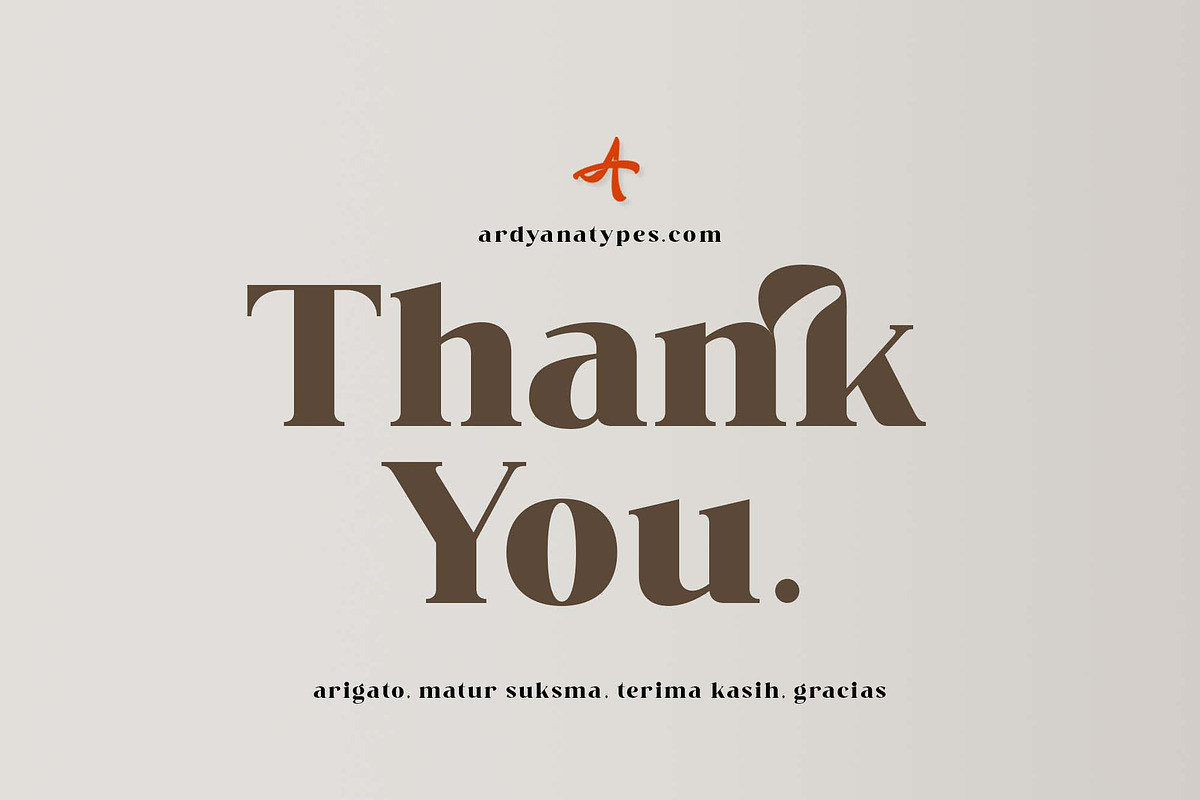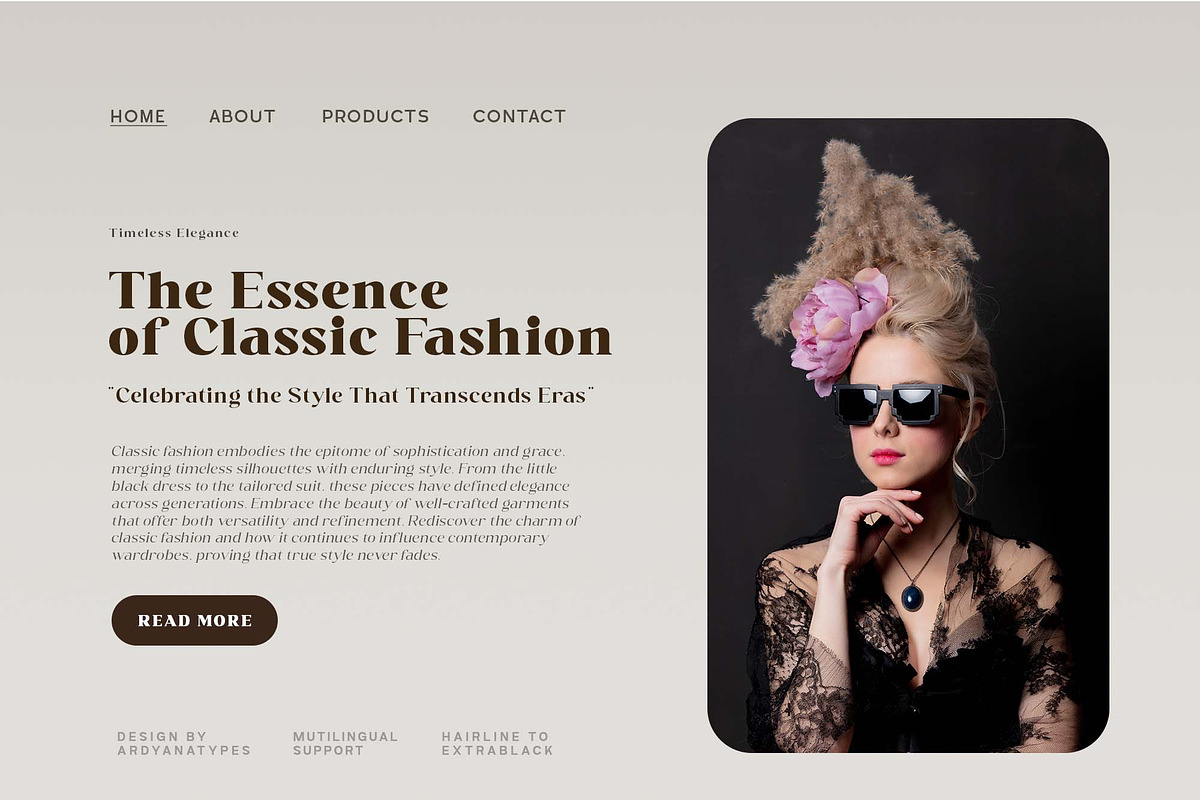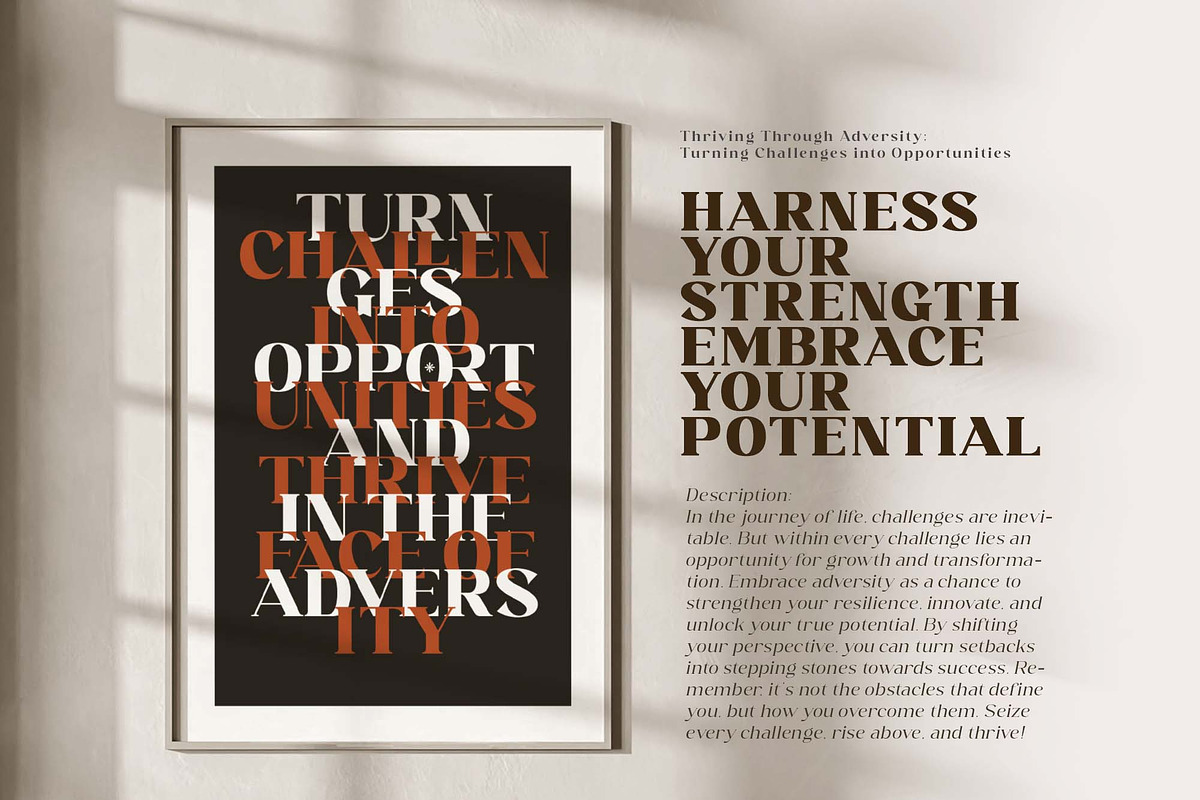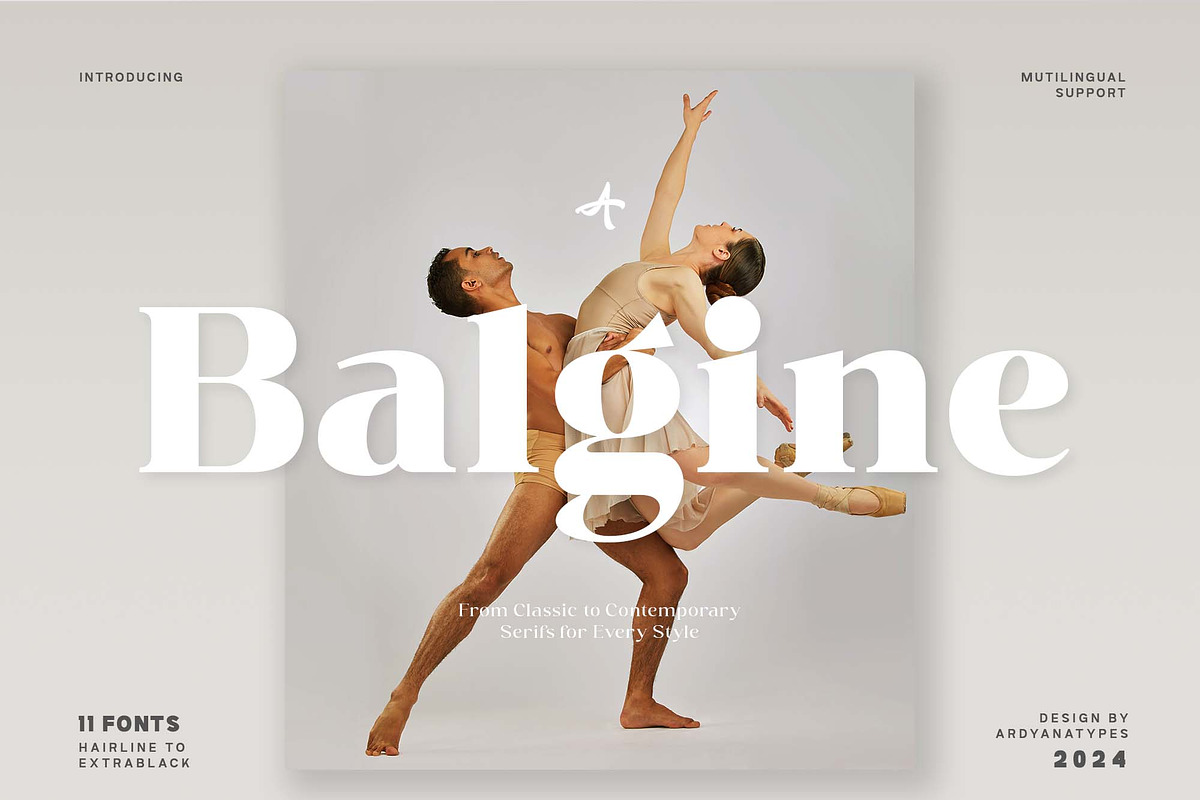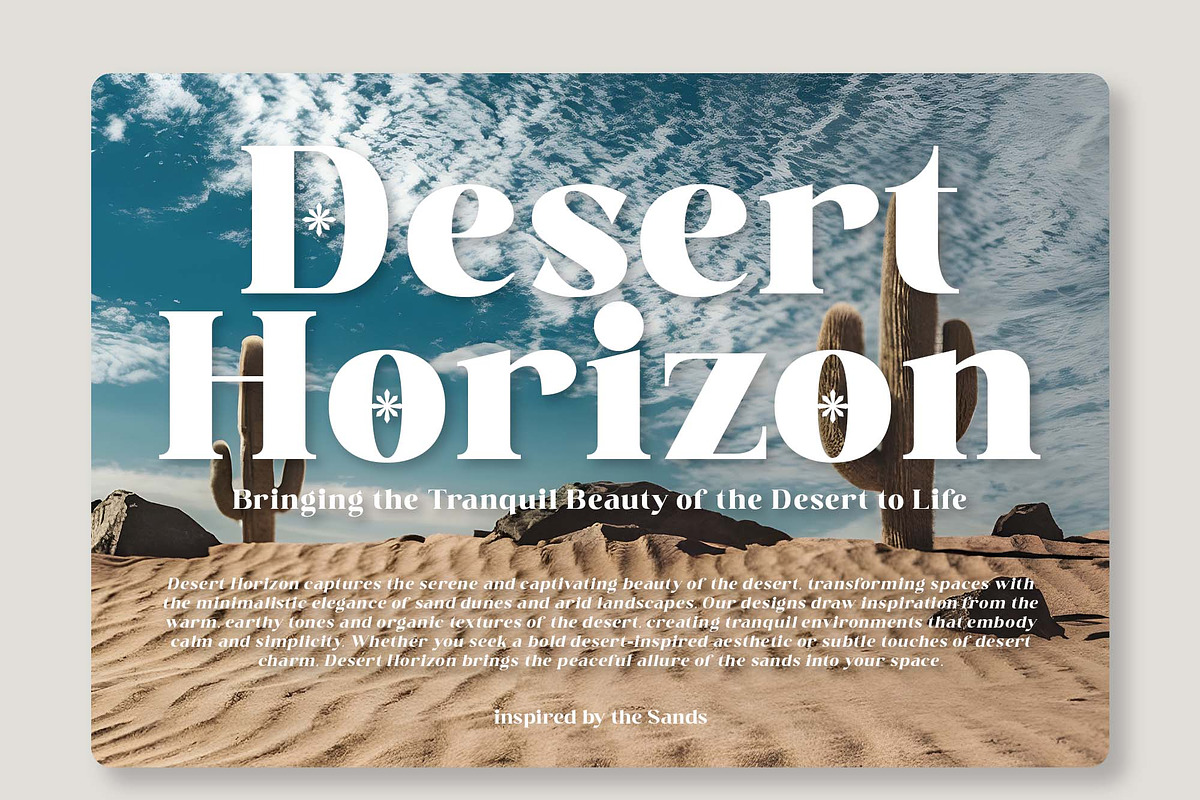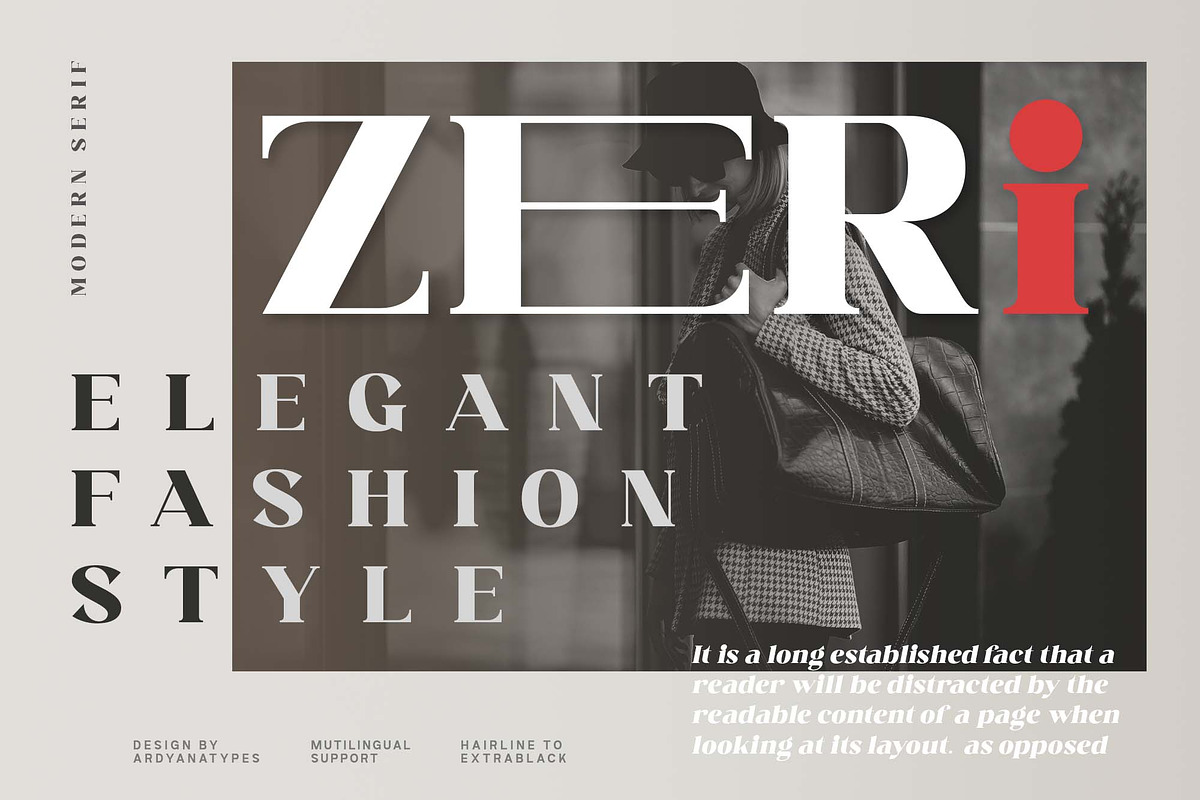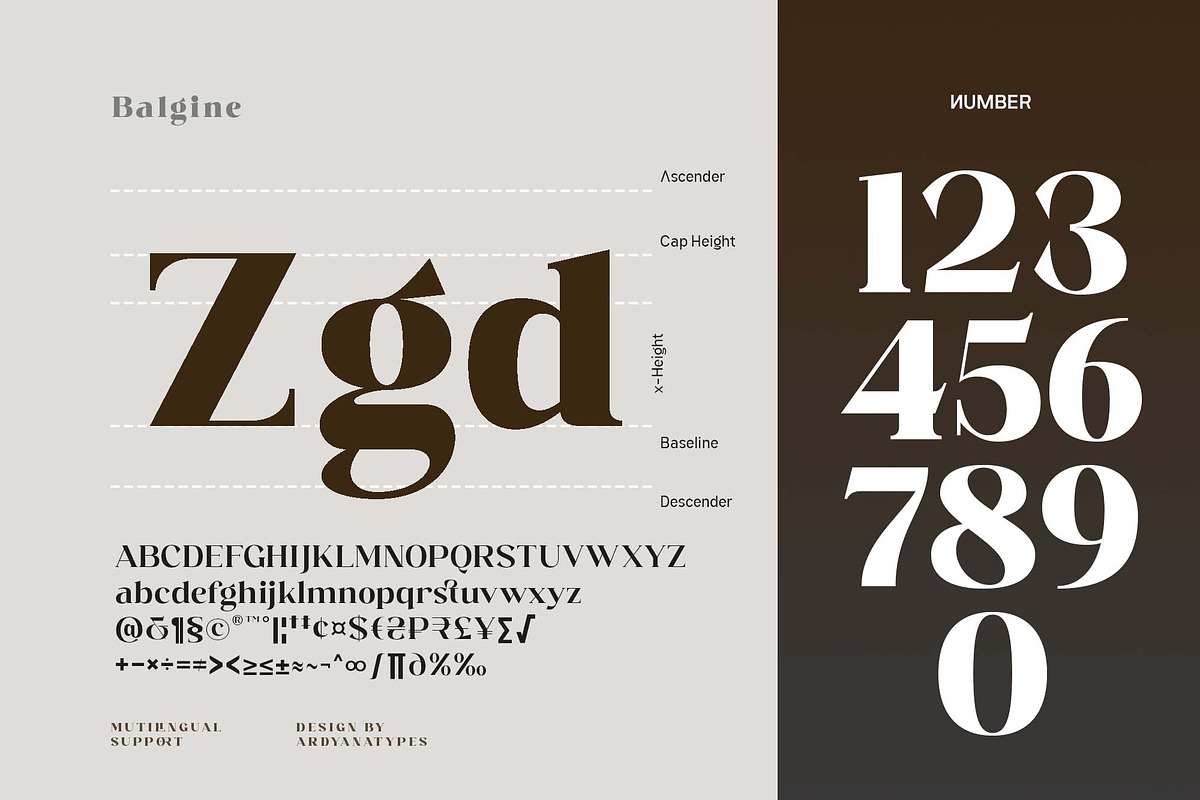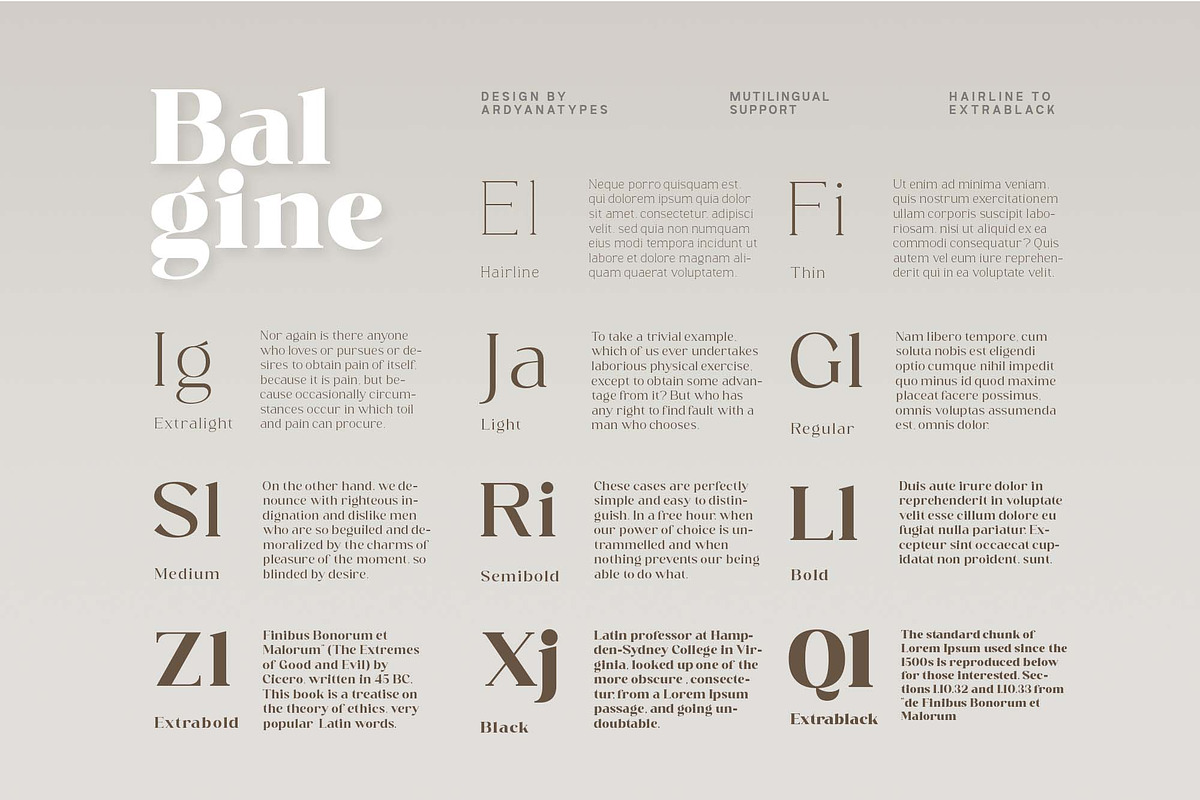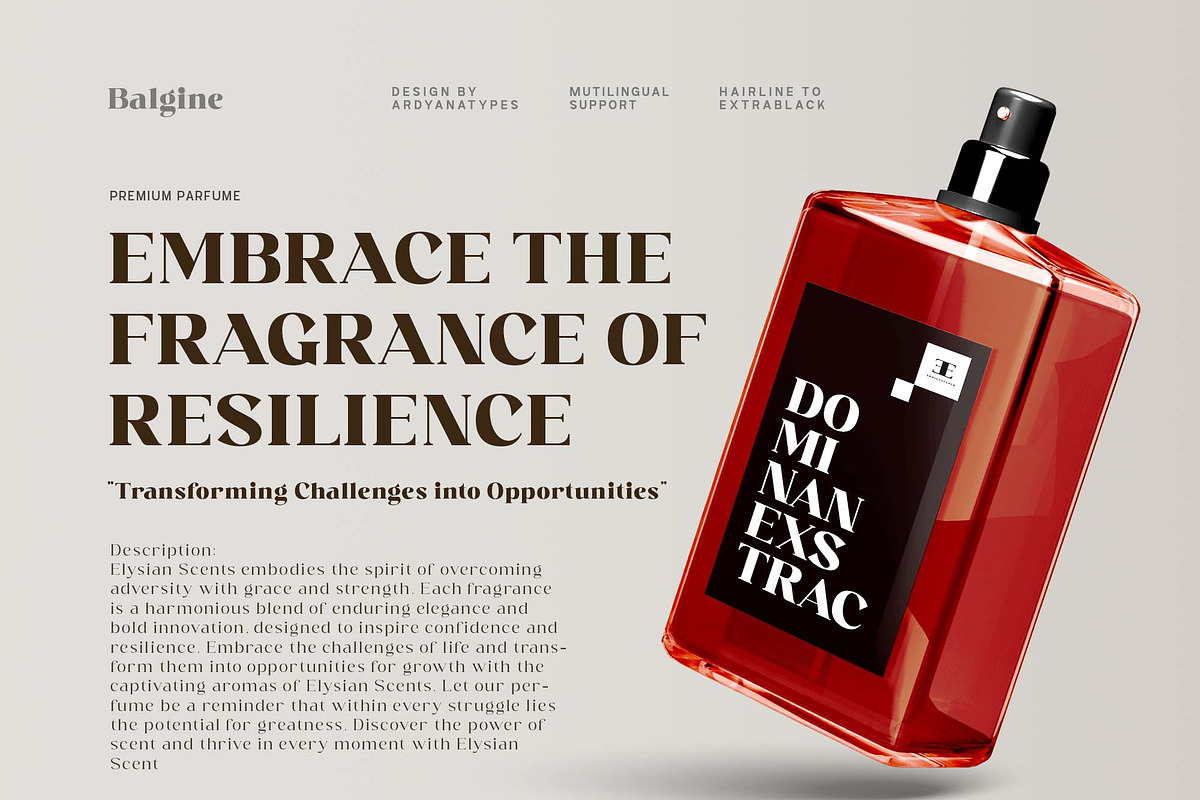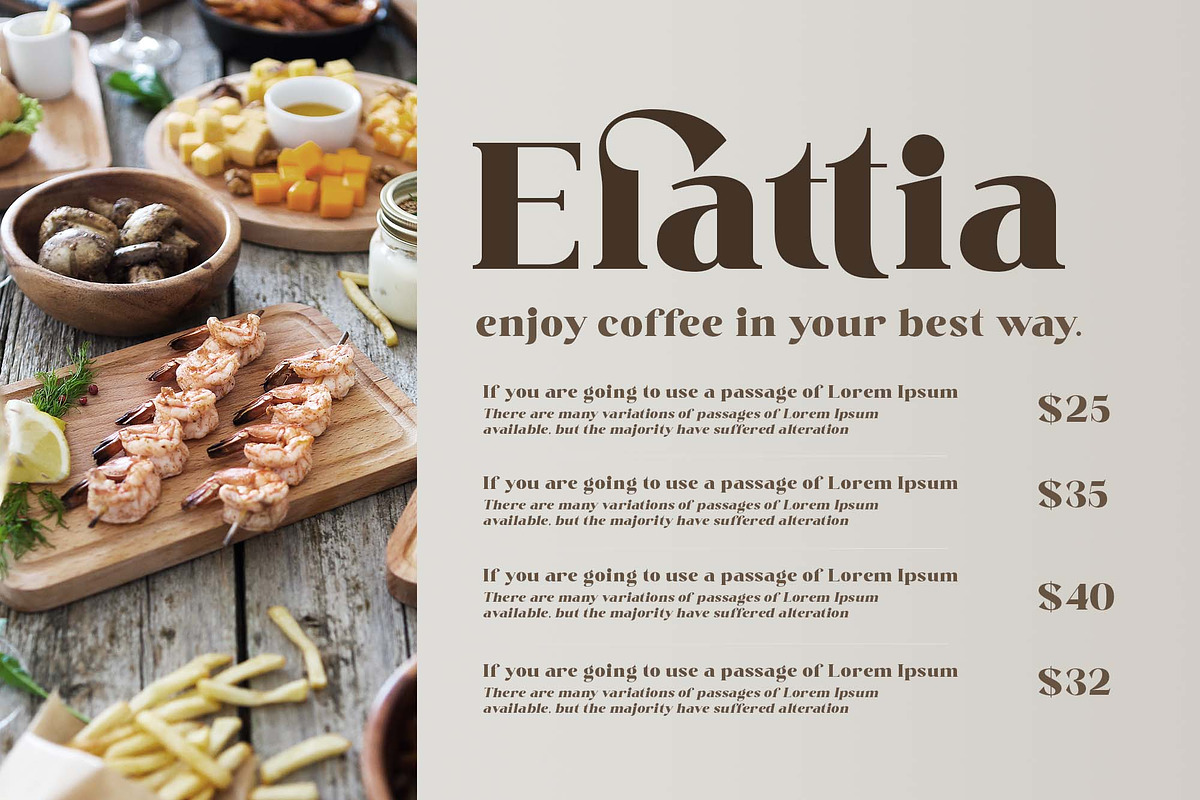
Balgine
Balgine is a serif font crafted with great precision and inspired by modern fonts of today. Equipped with full OpenType features, Balgine offers maximum flexibility for designers to create professional and creative works. Its elegant yet adaptable form makes it perfect for various design projects, from posters, movie titles, book designs, branding, to large-scale projects.
Balgine supports multiple languages, allowing it to be used worldwide, adding global value and professionalism to any project. With its dynamic and versatile look, Balgine is ready to elevate your design’s appearance to the next level.
A – Z Character Set
a – z Characters set
Numerals & Punctuations
Ligatures & Alternates